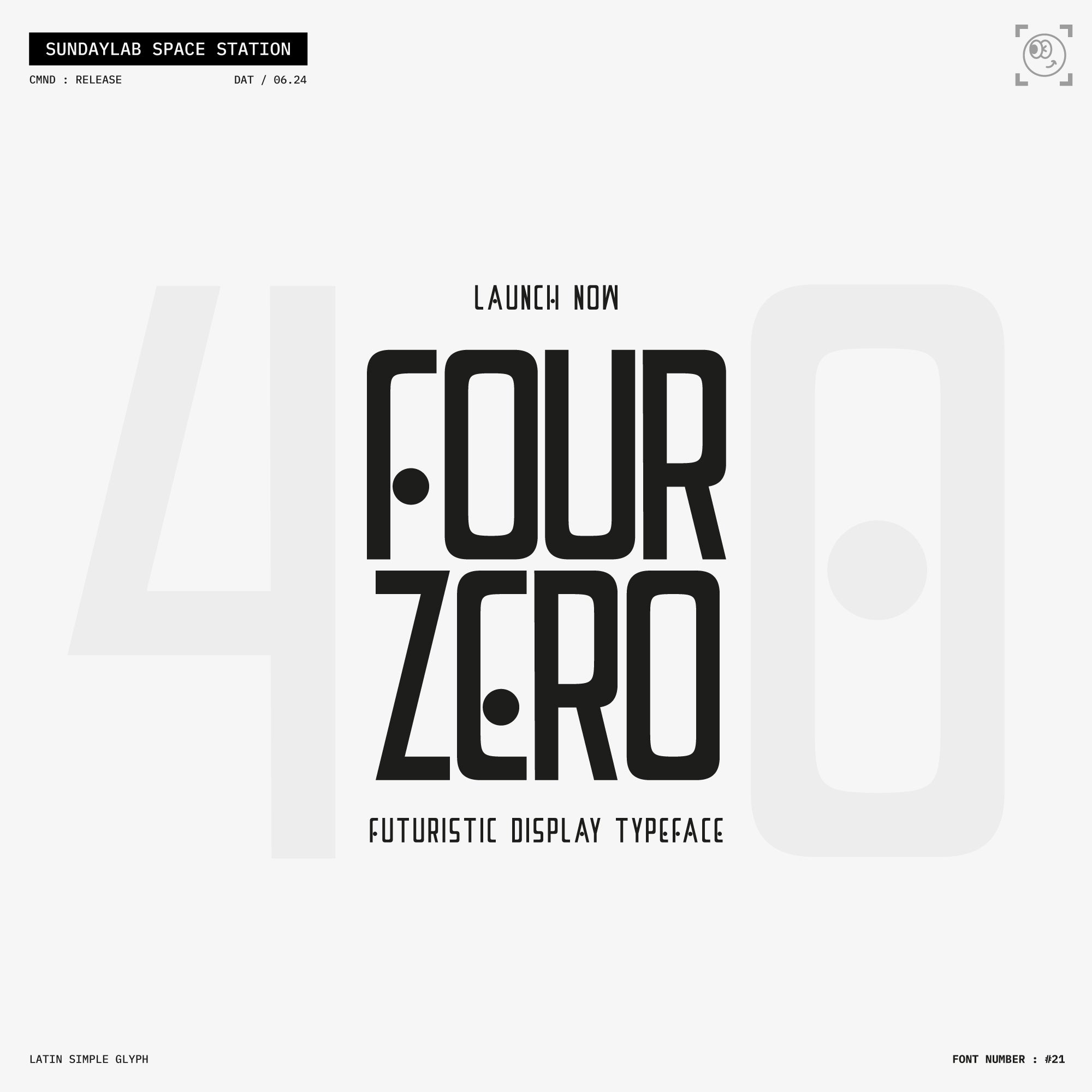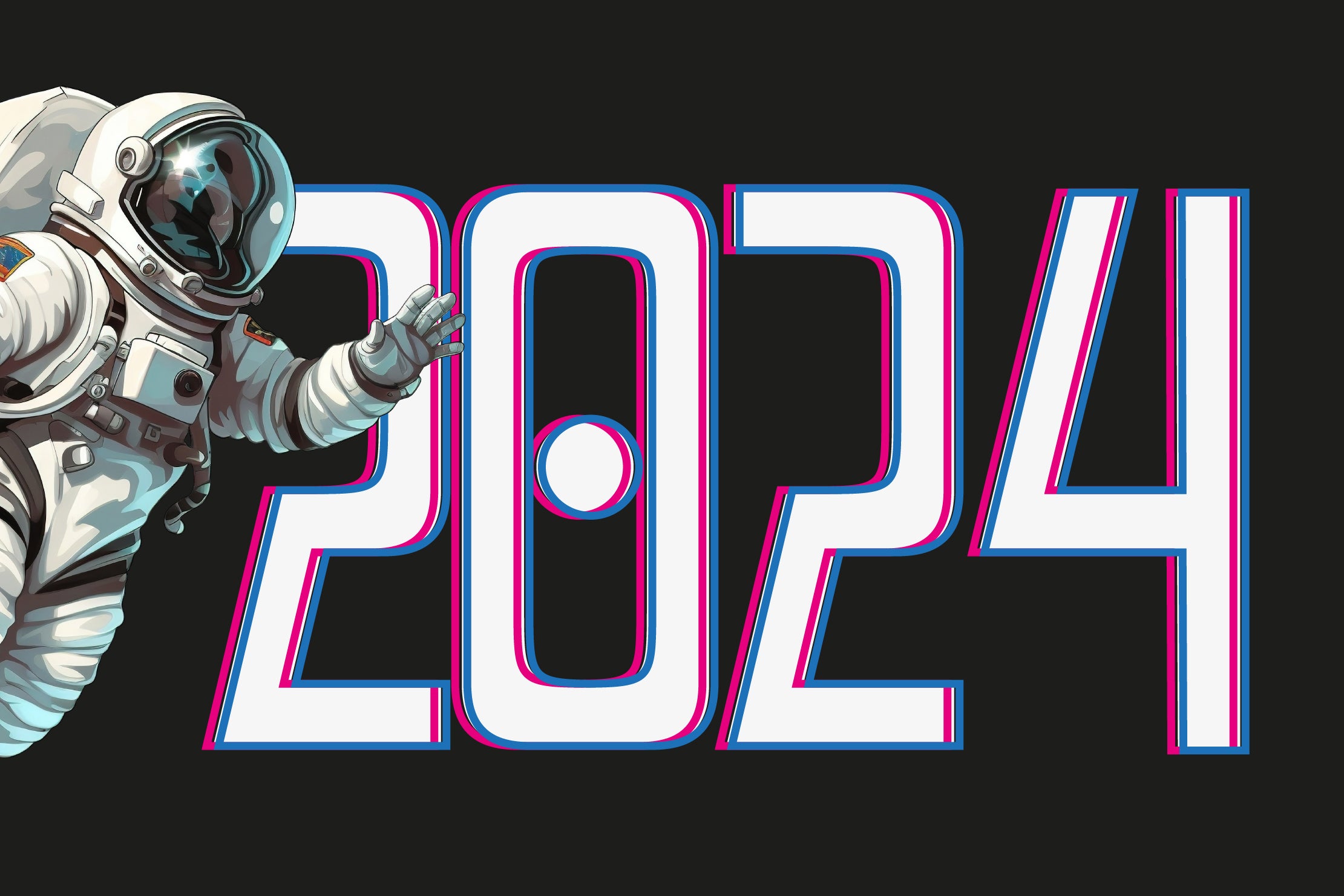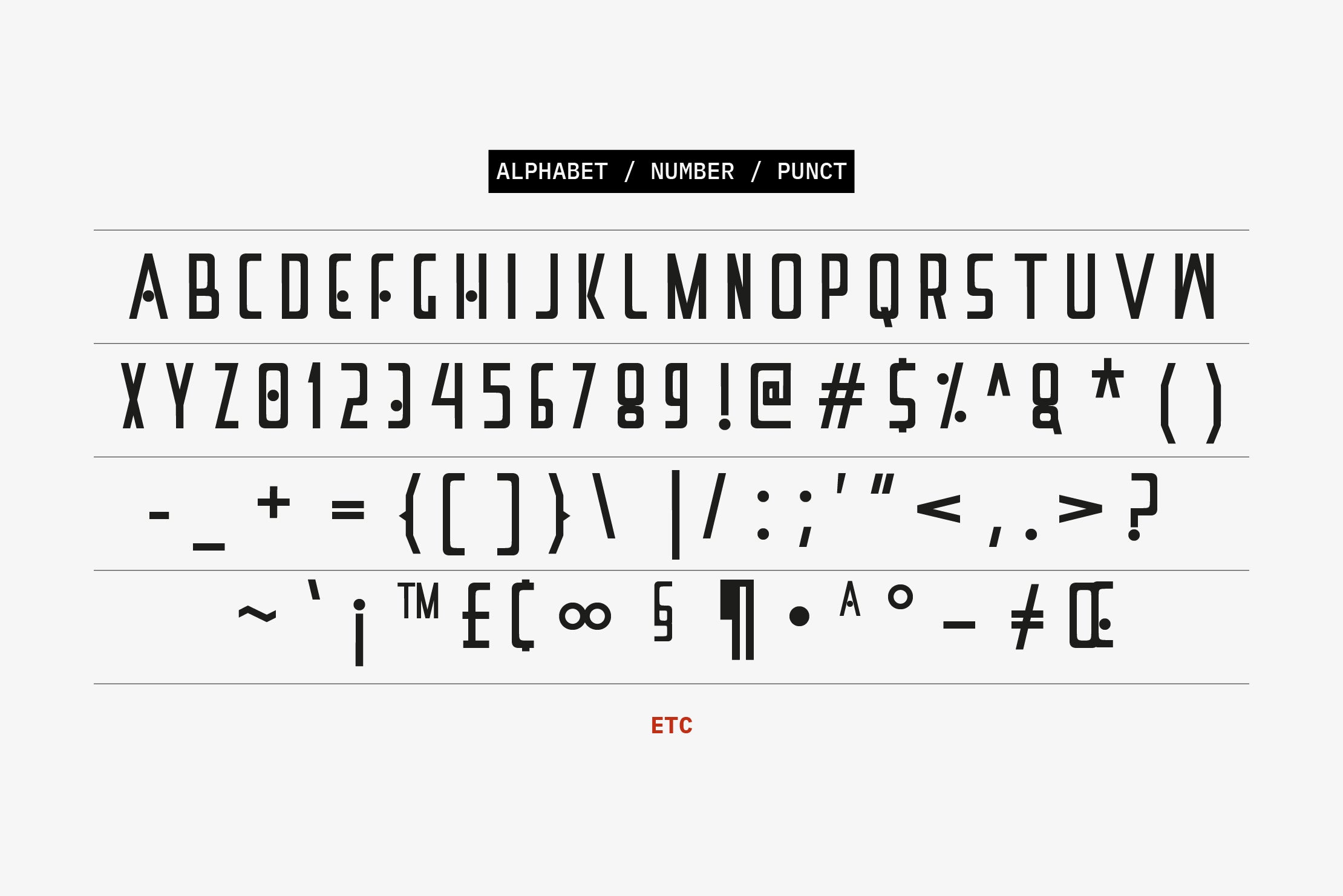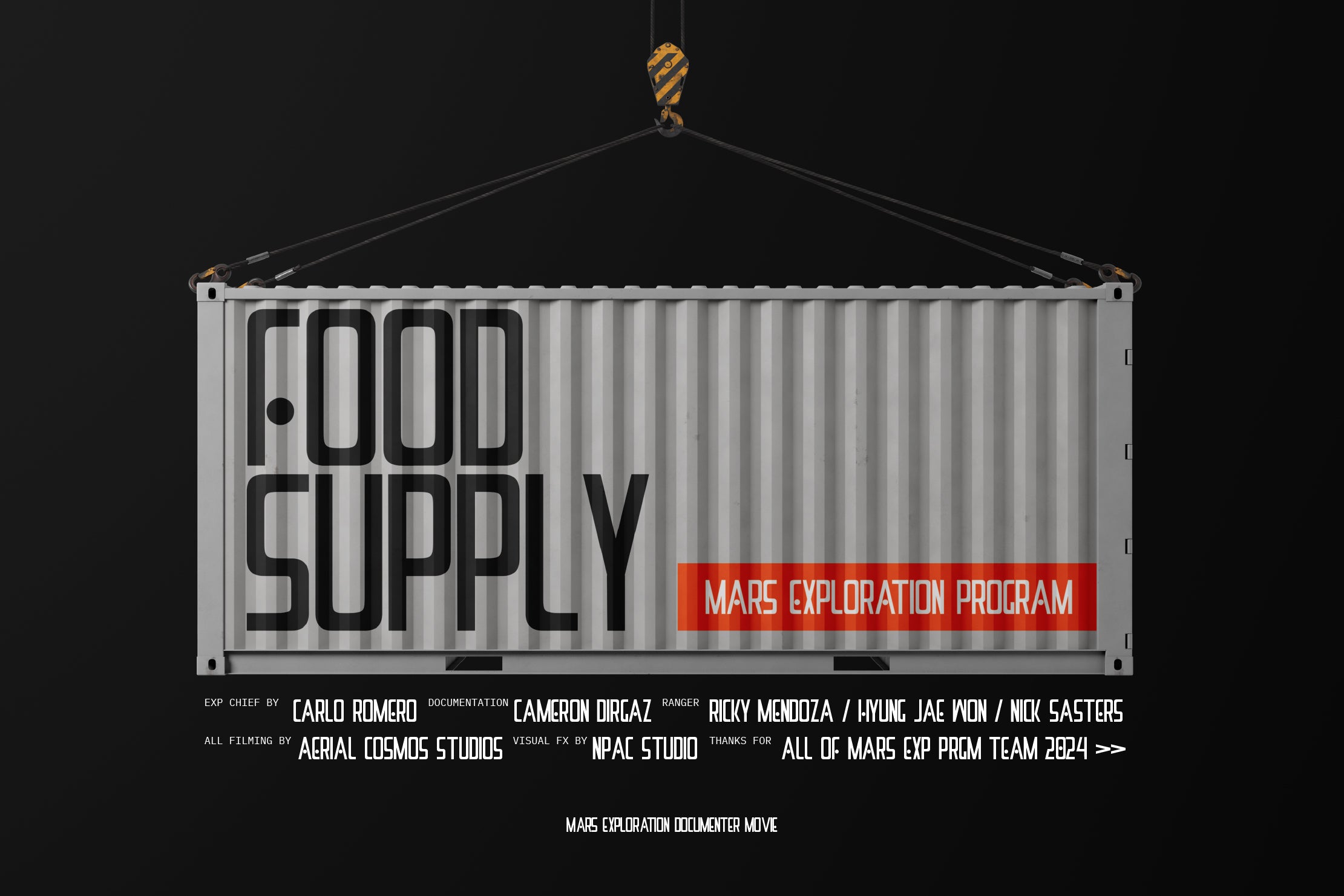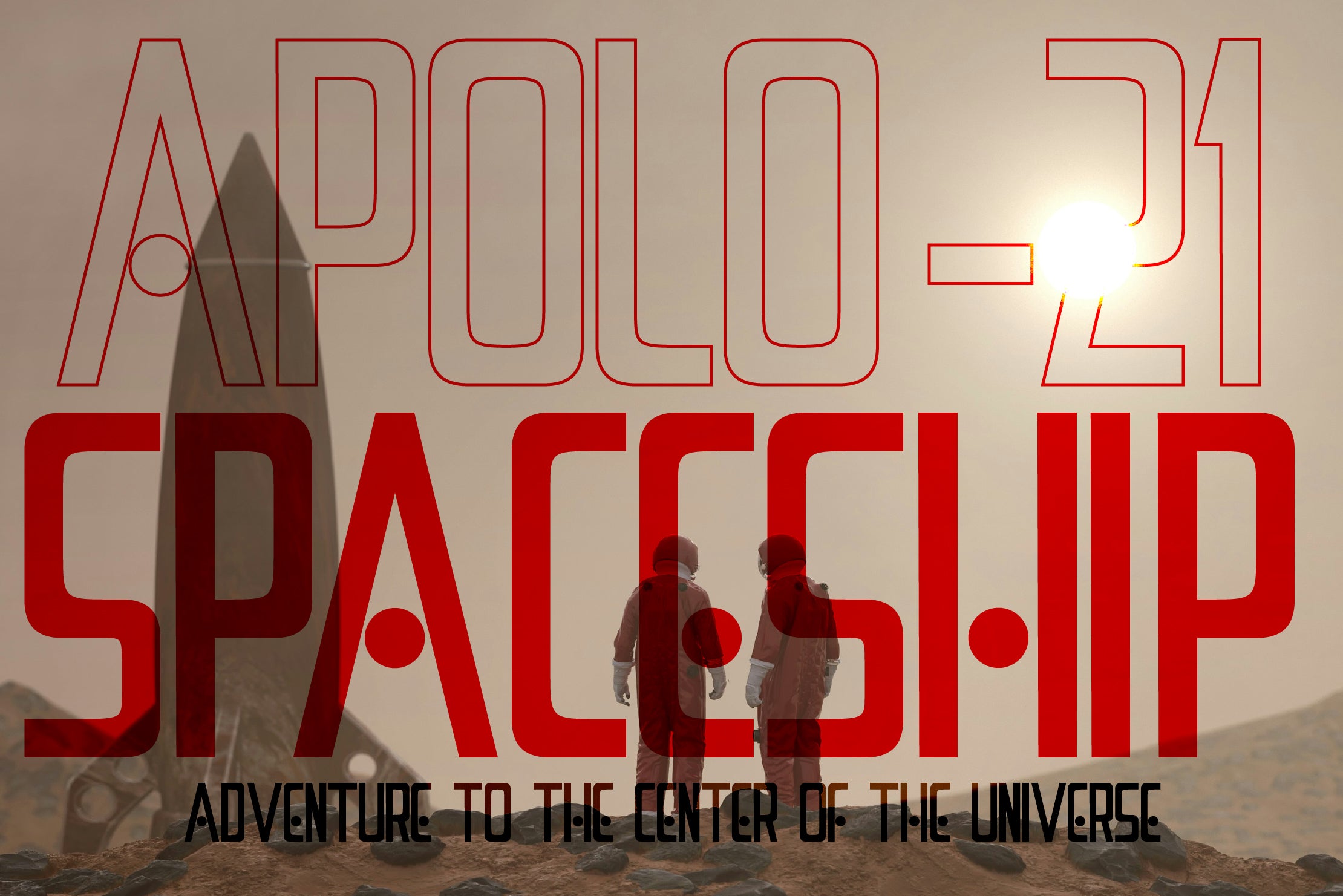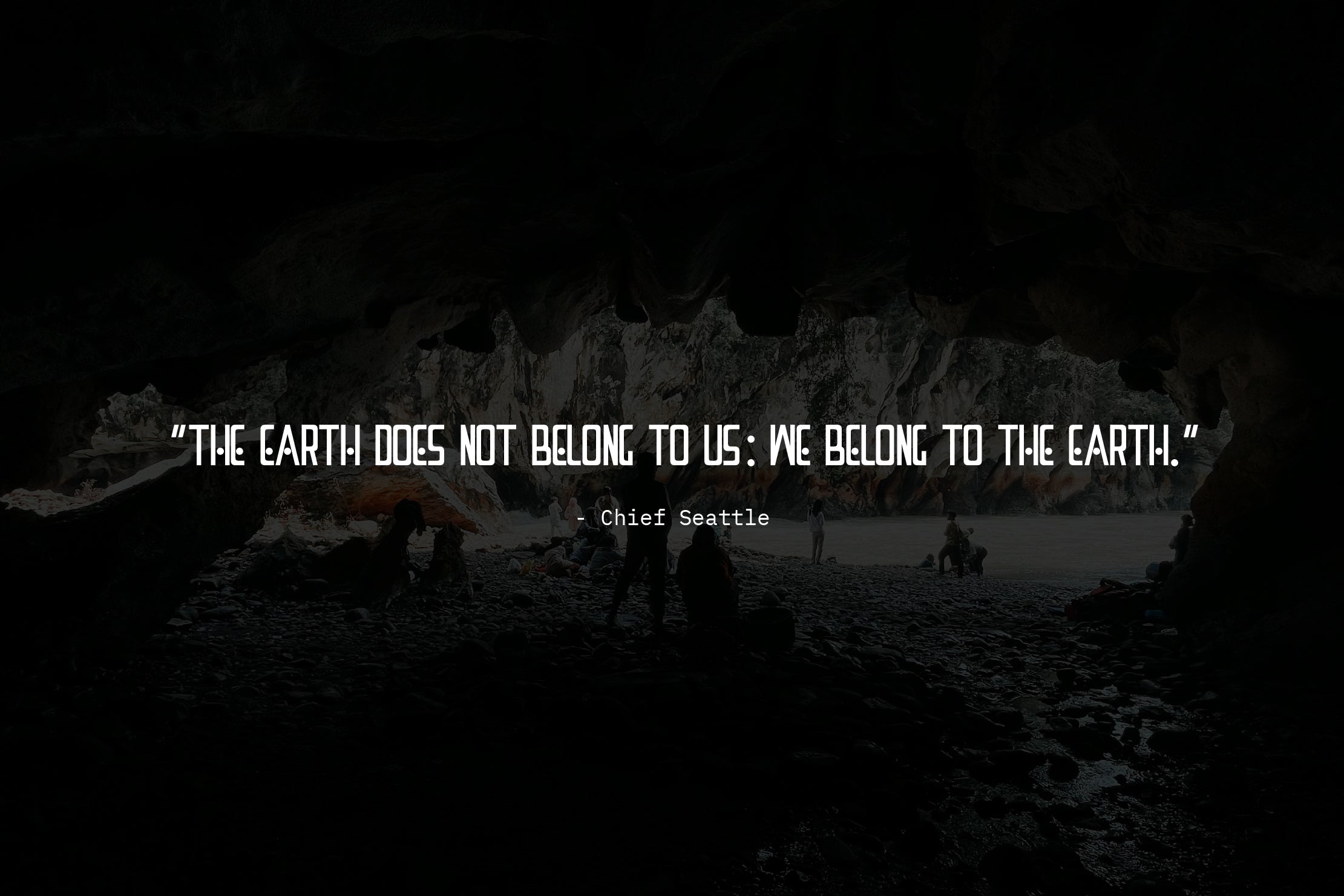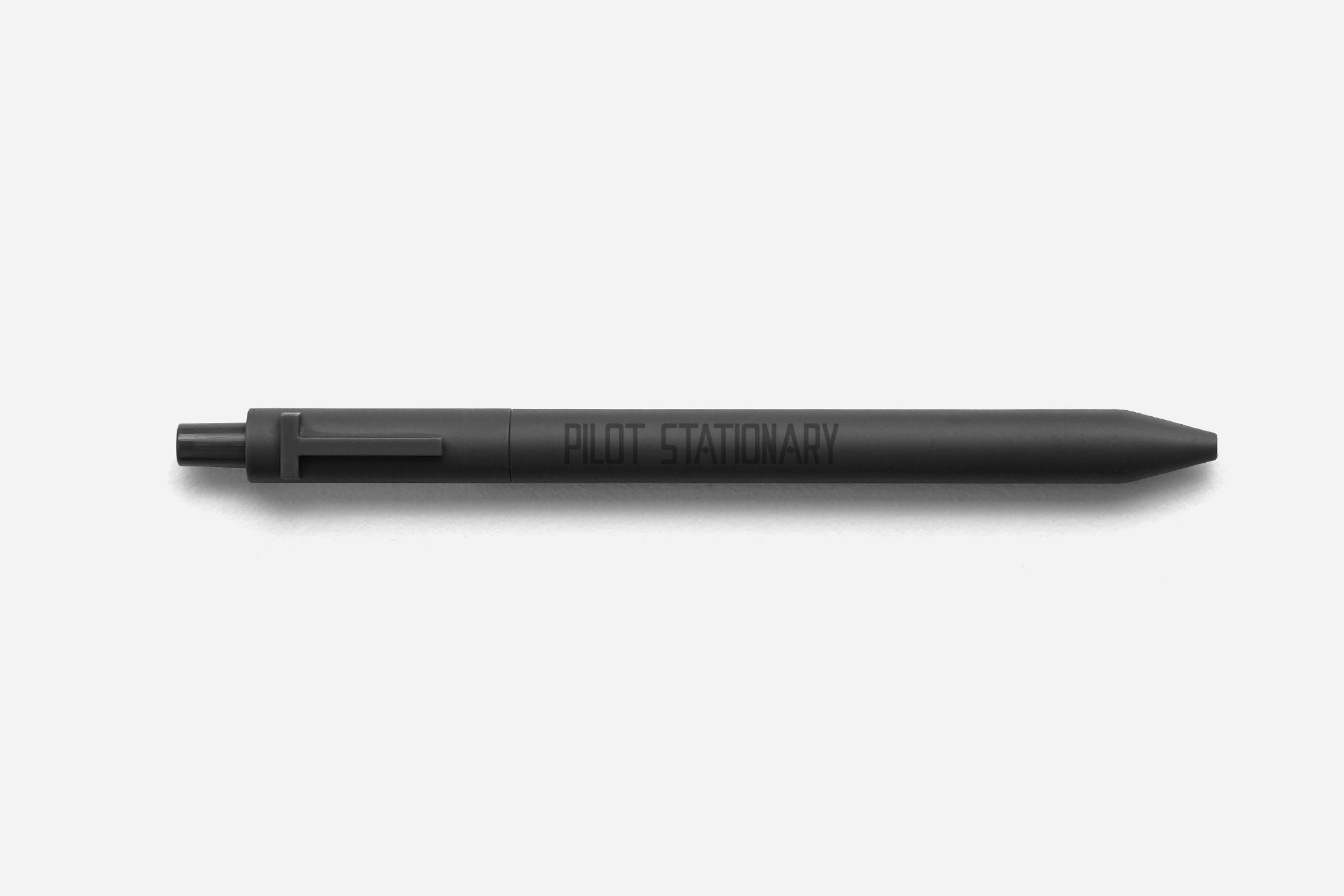
Four Zero Futuristic Typeface
Introducing
Four Zero Typeface
Four Zero is a futuristic condensed display typeface built for bold headlines, technical layouts, and high-impact visual communication.
Featuring a tall, narrow structure with geometric construction, distinctive counters, and subtle futuristic details, Four Zero delivers a clean yet unconventional sci-fi aesthetic. Its condensed proportions allow large headlines and typography to fit comfortably into modern compositions while maintaining a strong visual presence.
Perfect for sci-fi posters, space exploration graphics, futuristic branding, technology campaigns, automotive design, aerospace projects, editorial layouts, movie titles, gaming graphics, packaging, apparel, and experimental typography.
Four Zero works especially well when you want a technical, futuristic, industrial, cinematic, or space-age atmosphere.